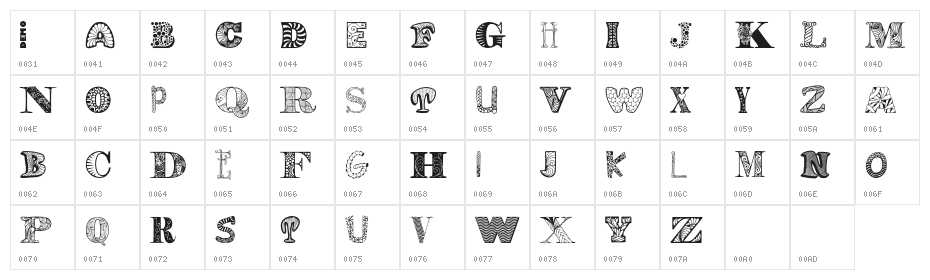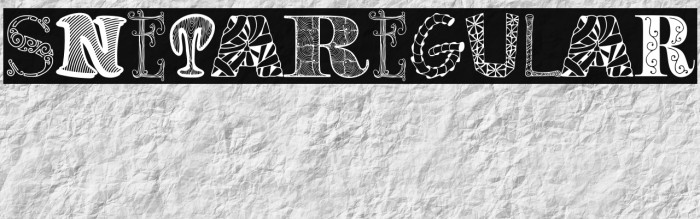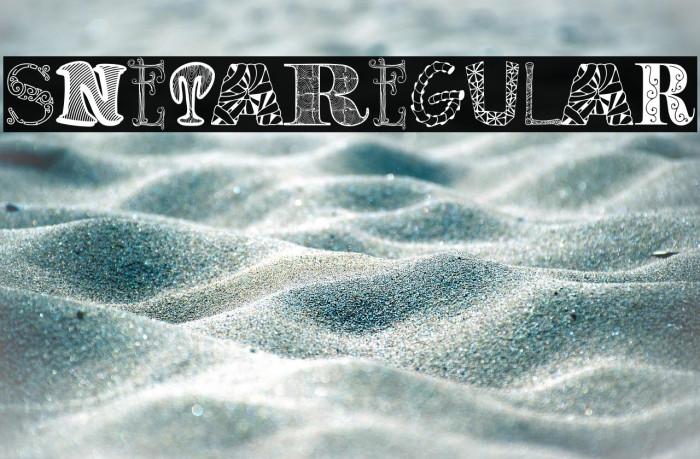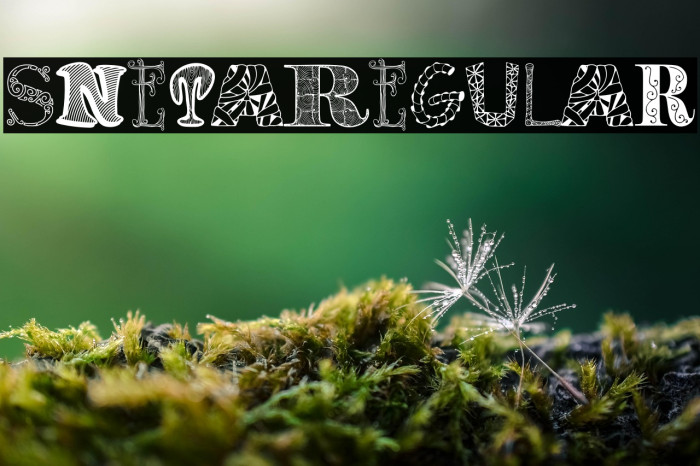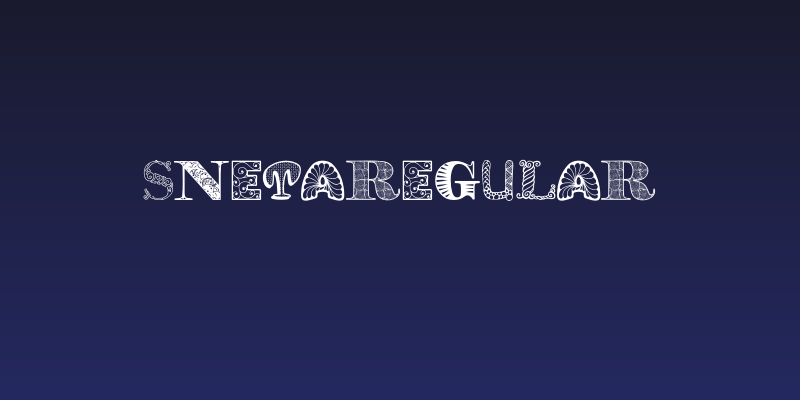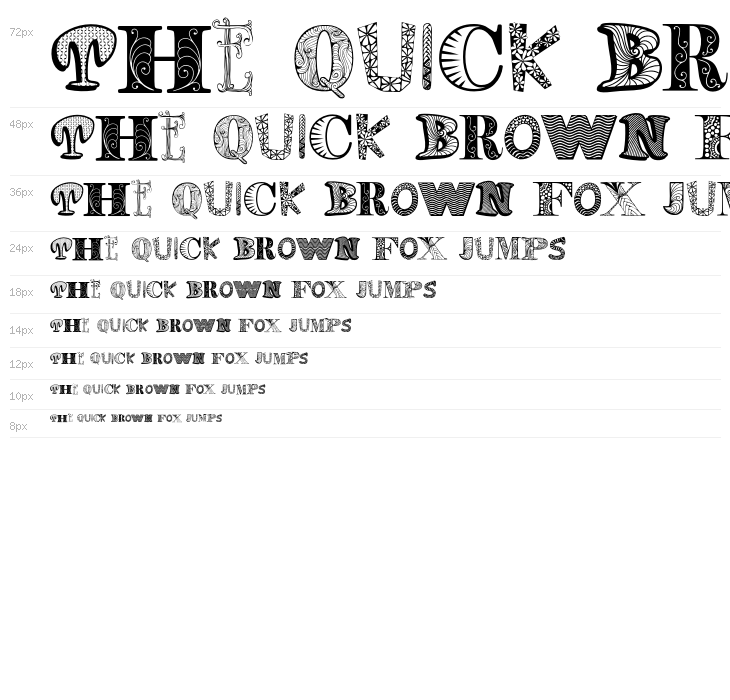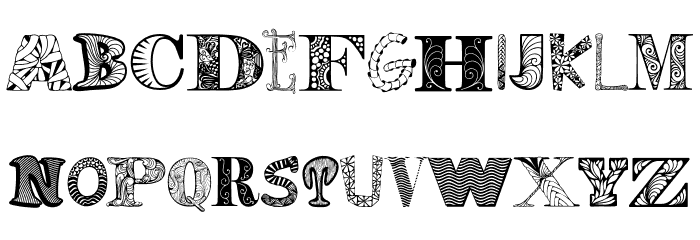
SnetaRegular Font
SnetaRegular Description
This font is a highly decorative and artistic typeface, featuring intricate patterns and designs within each letterform. The uppercase letters are filled with unique motifs, ranging from geometric shapes to floral and abstract patterns, giving each character a distinct and eye-catching appearance. The font is bold and expressive, making it ideal for projects that require a strong visual impact. The characters are well-defined, with a consistent style that maintains readability despite the elaborate detailing. This typeface is perfect for creative projects where a touch of whimsy and artistic flair is desired.
| Proposed Projects | Ideal for posters, album covers, event invitations, and any project needing a bold, artistic touch. |